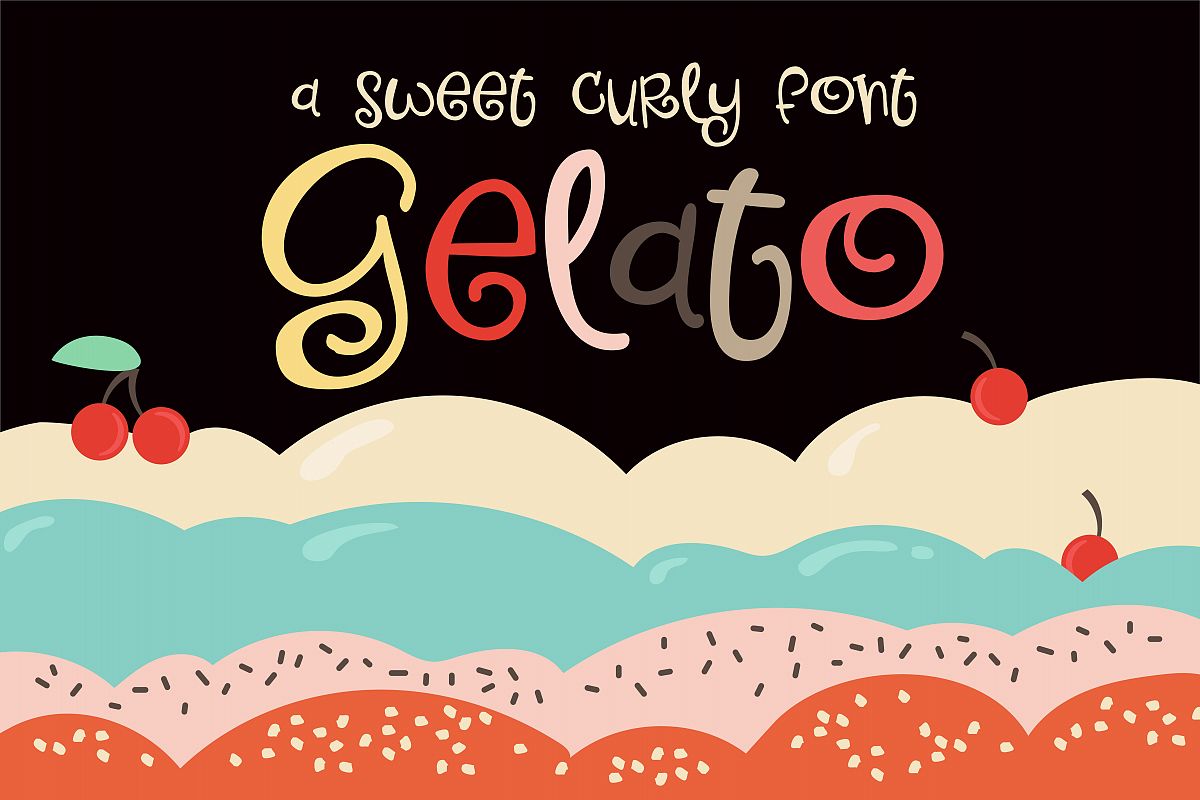
ZP Gelato
This very whimsical font has a mix of curls, casualness, and serifs for a fun and happy feel for any project. Pair this font with it's sister script: ZP Gelascript